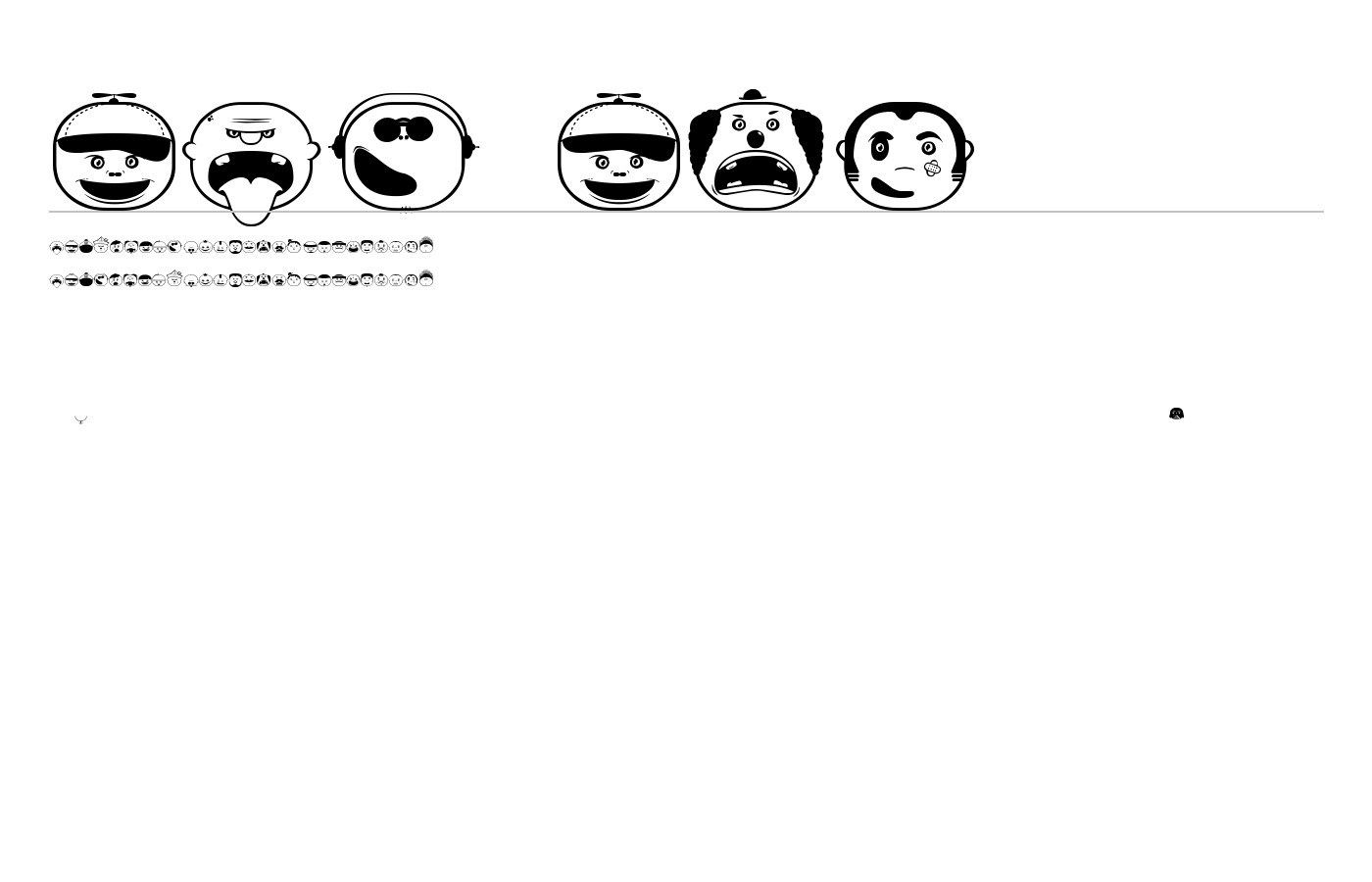
Bad Boy Font is a playful and bold display typeface characterized by quirky, cartoonish faces instead of traditional letters, giving it a fun and rebellious personality. Its unique design makes it perfect for eye-catching logos, posters, or creative projects that want to express energy and humor. Ideal for informal, youth-oriented branding, this font adds a distinctive, lively touch where standard typography falls short.
| Font family | Bad boy Font |
| Designer | Qkila |